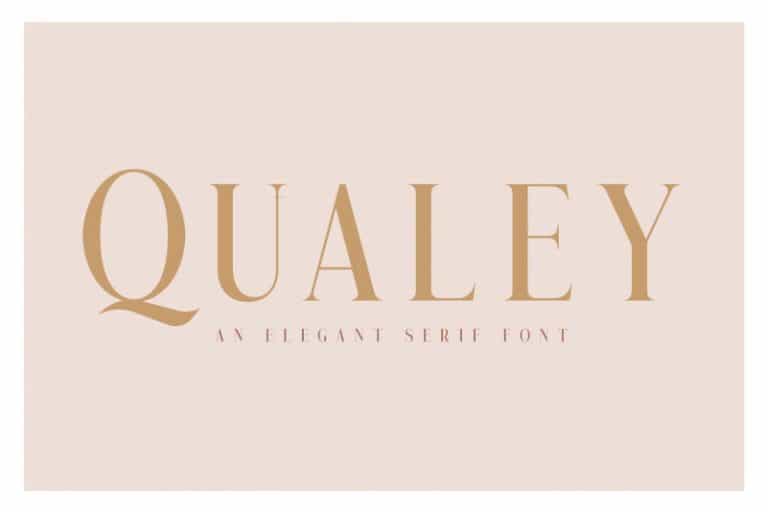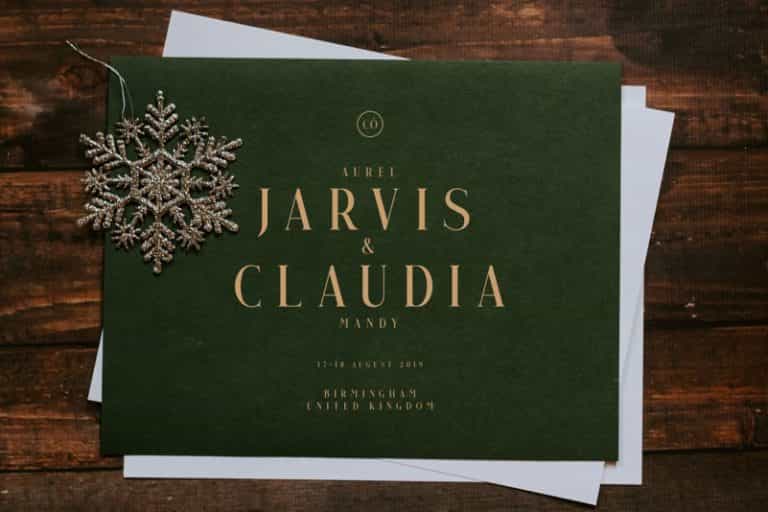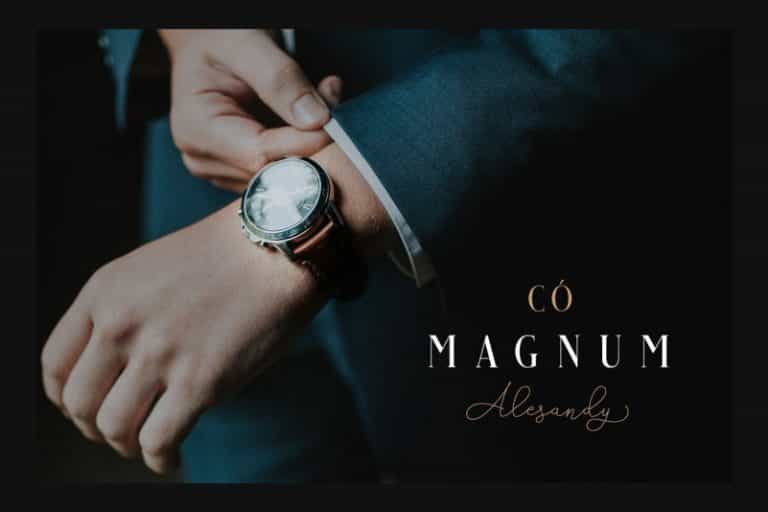
Introducing Qualey Font. The Qualey is designed and shared by Craft Supply Co. would be it source of inspiration for the new variety cup holders offered in stores around town. Qualey Elegant Serif Font is a contemporary serif font family that has been made in such a way as to resemble the style of modern-serif fonts. The most identifiable aspects of Qualey are the quite high contrast between strokes, the slightly squared shapes of sharp characters and the business like simplicity which is accentuated.